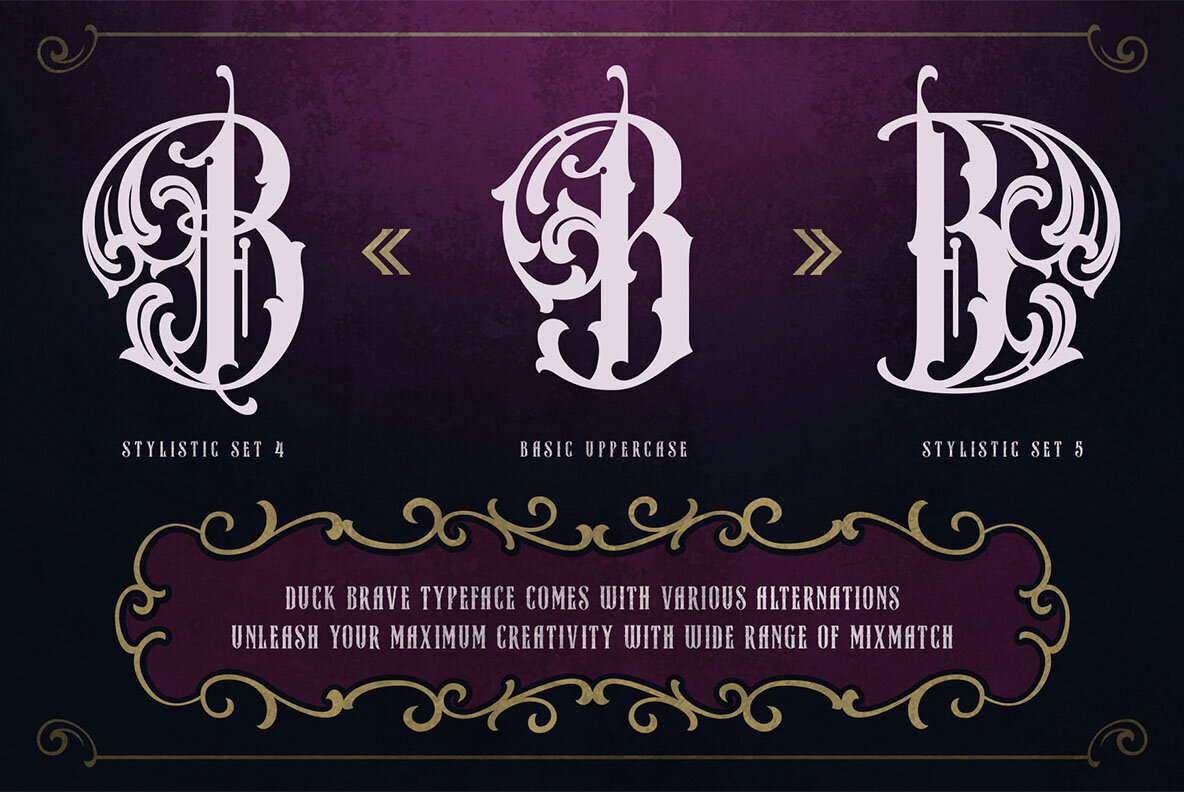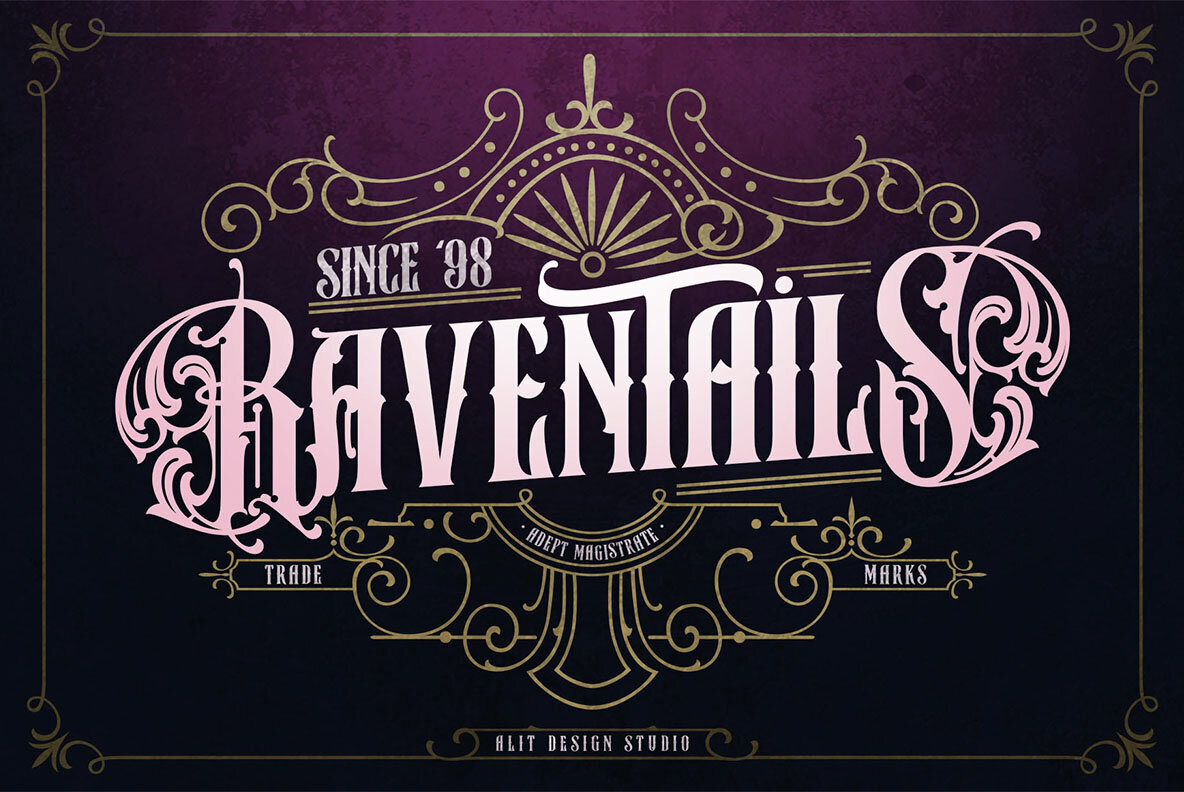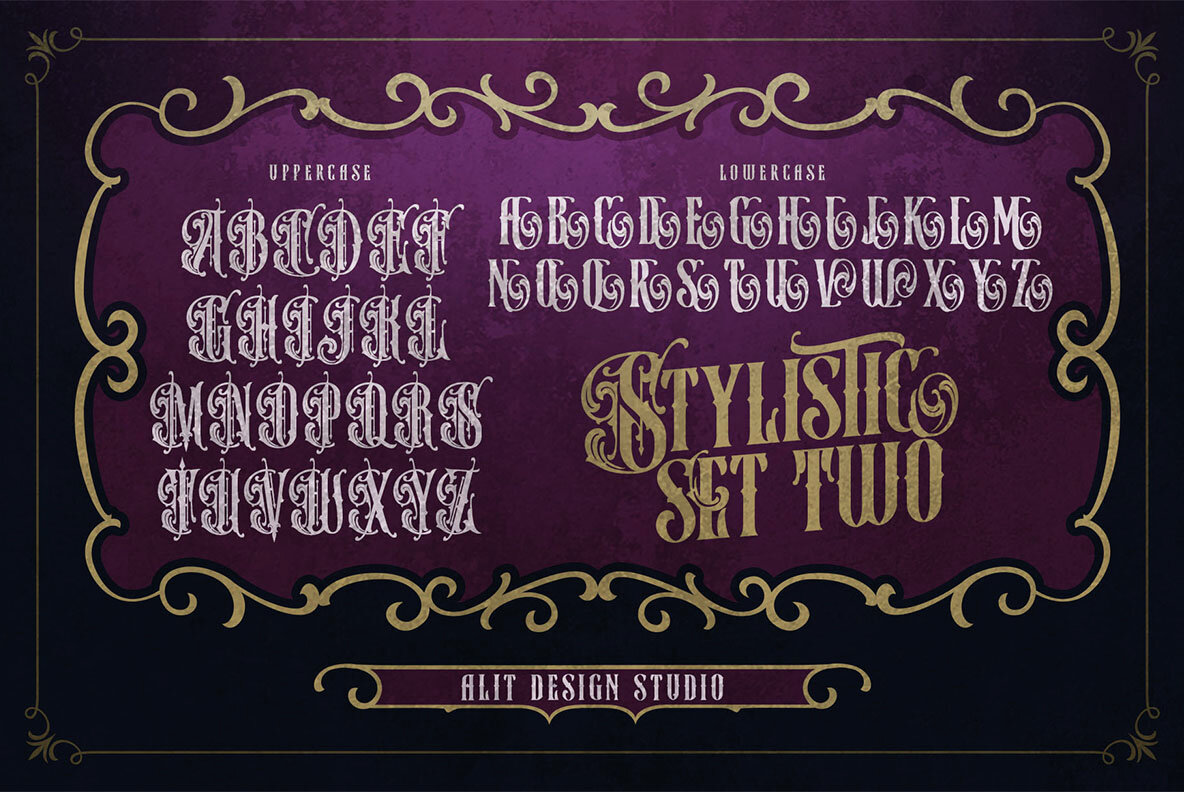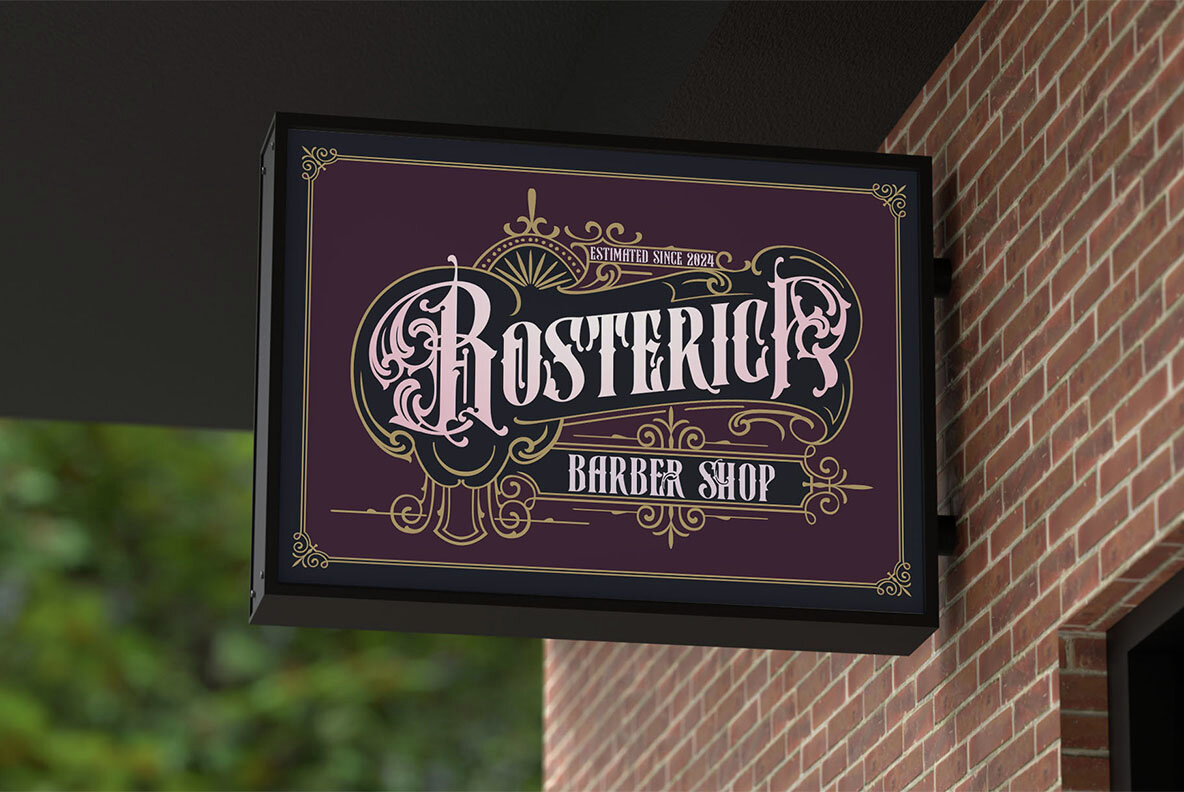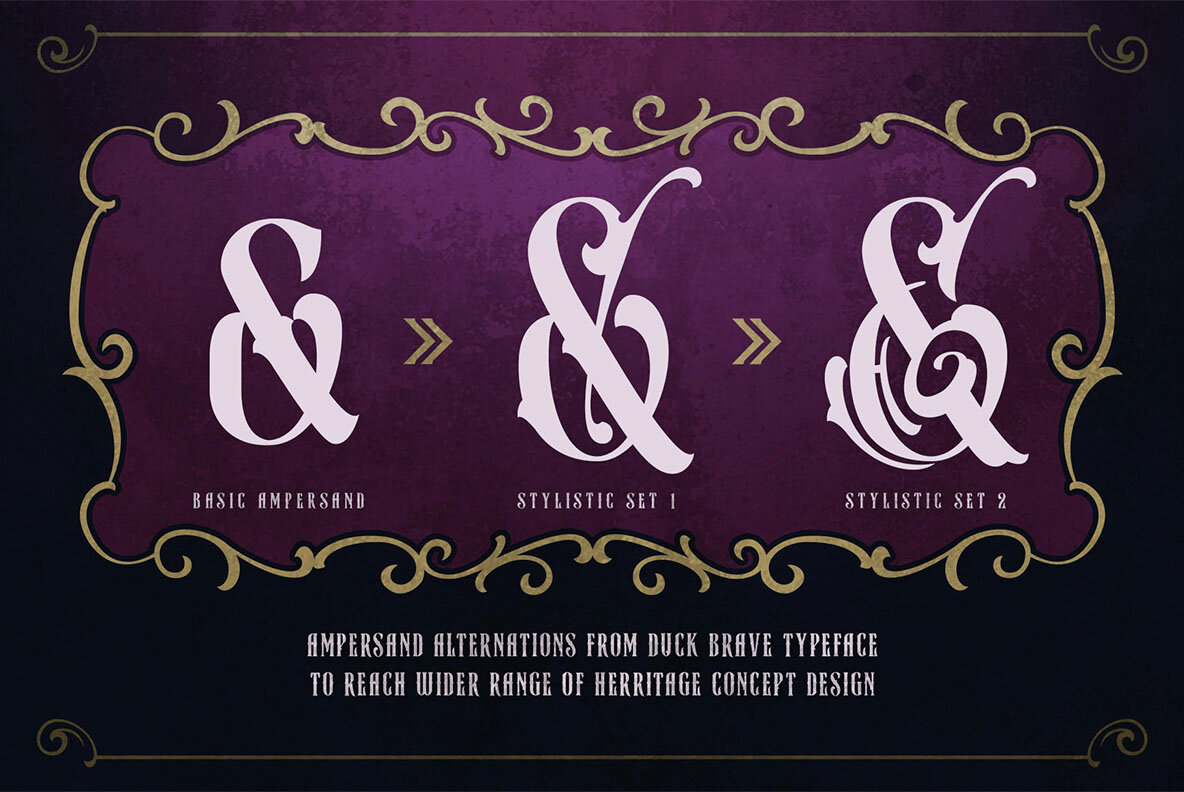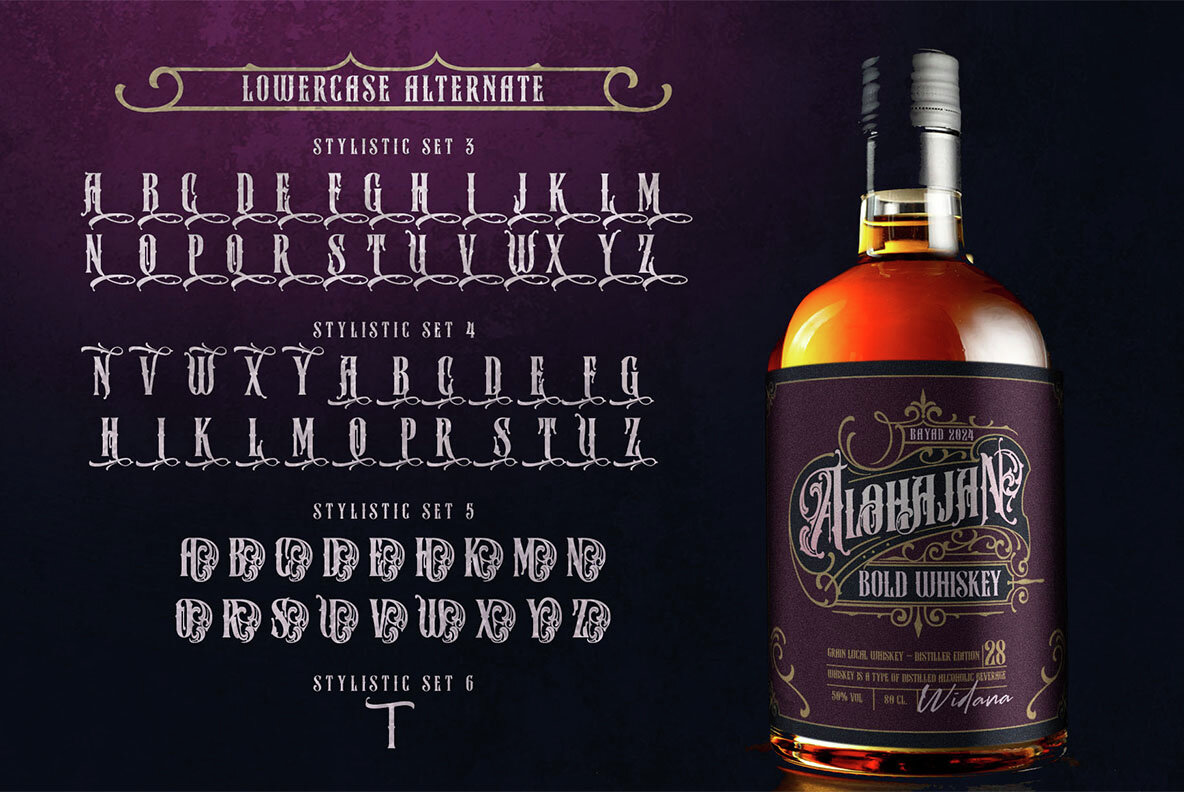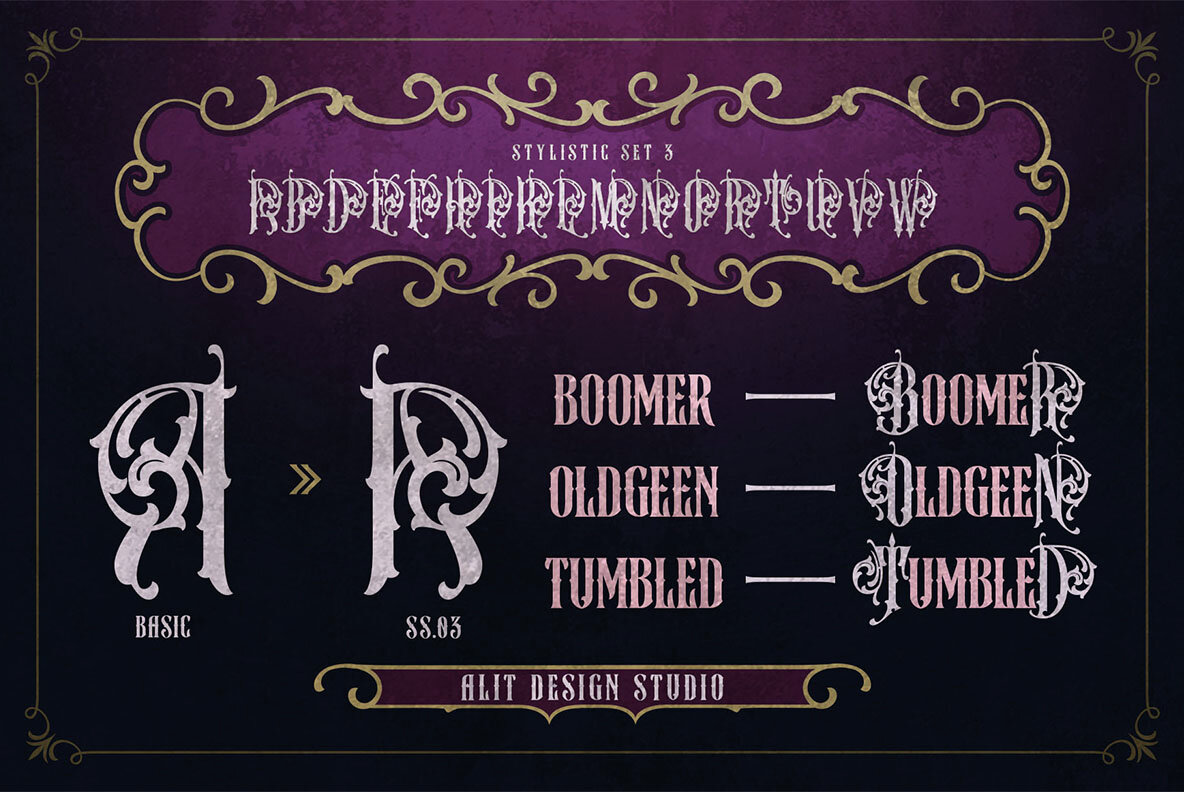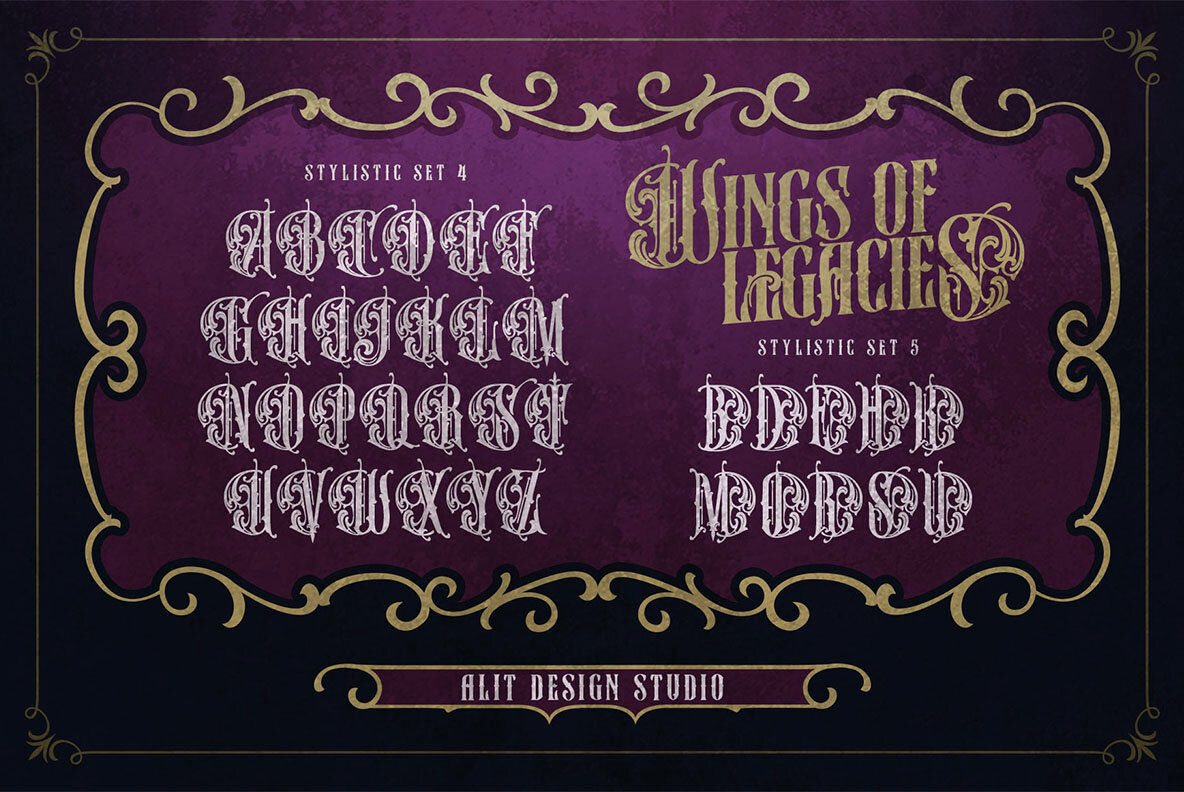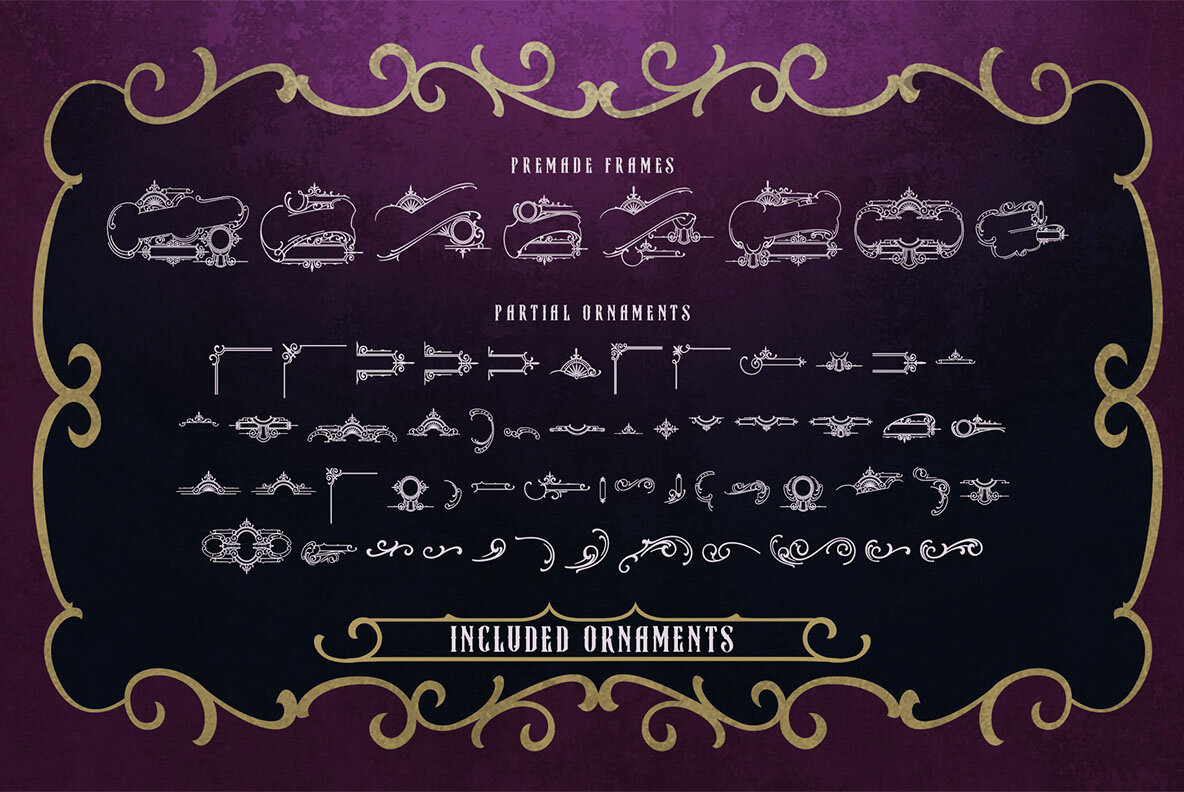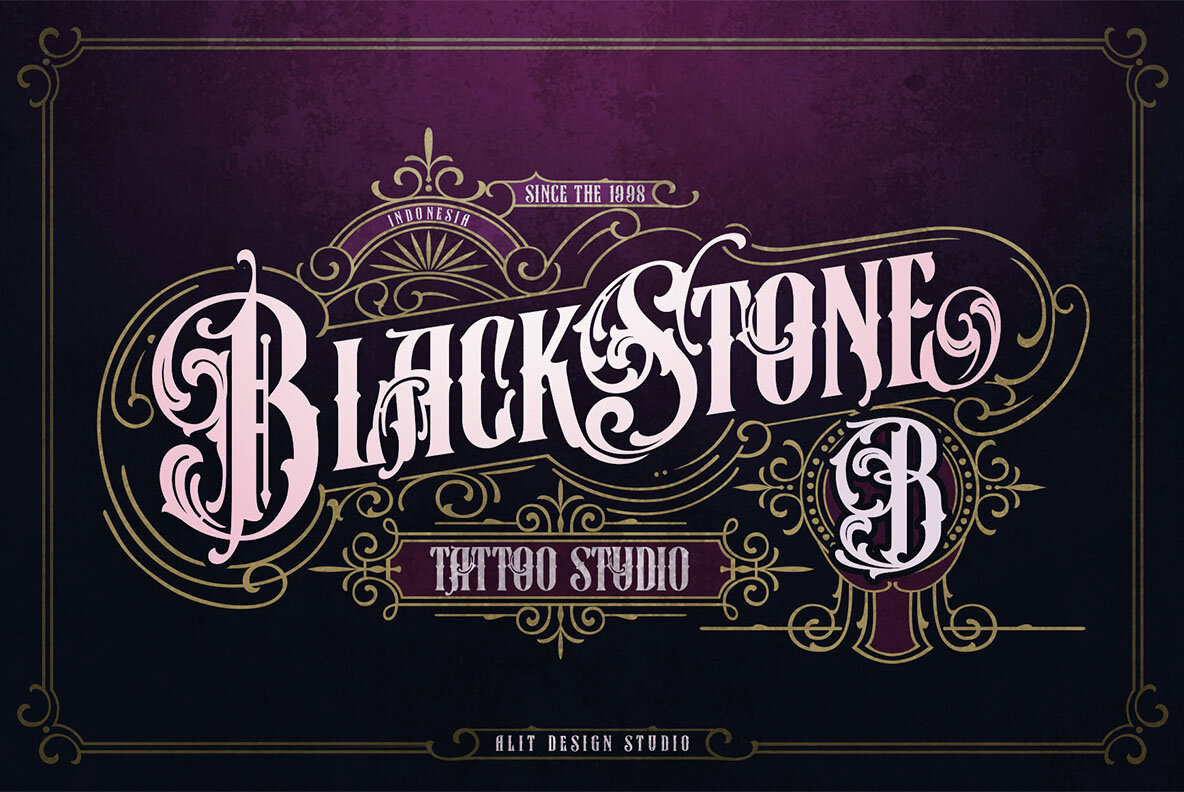
Duck Brave Font
Discover the Victorian elegance with this meticulously crafted typeface, embodying the intricate beauty and sophistication of a bygone era. Perfect for designs that require a classic touch, this typeface features ornate carvings and elaborate swashes that pay homage to Victorian artistry. Whether used in logos, branding, or invitations, it offers a timeless appeal that ensures your designs stand the test of time with unparalleled charm.
Featuring 768 unique characters, this typeface brings versatility and depth to every project. It includes 62 supporting dingbat ornaments, offering a range of decorative elements such as frames and badges to enhance your designs. Elegant ligatures and sweeping swashes provide fluidity and flair, while stylistic alternatives allow for personalized typography. With PUA Unicode and multilingual support, you can seamlessly access special characters across various languages, making it an ideal choice for any project needing a distinguished Victorian-inspired aesthetic.